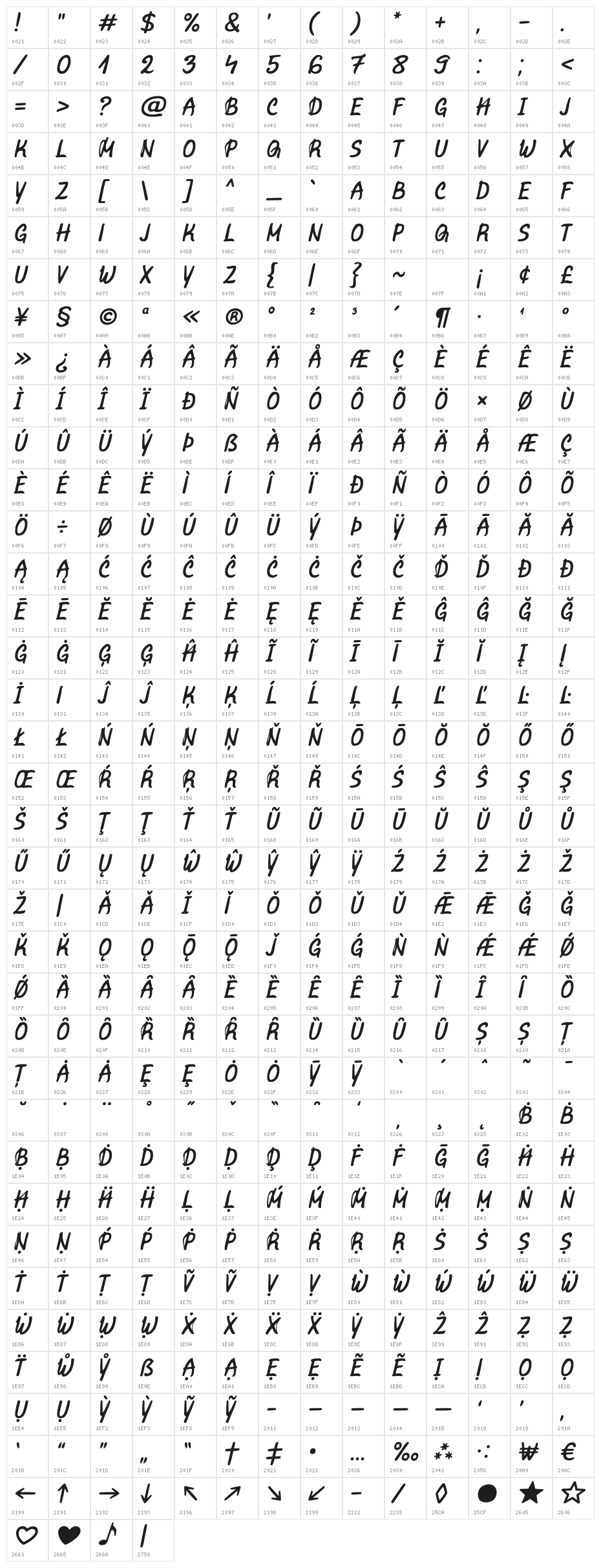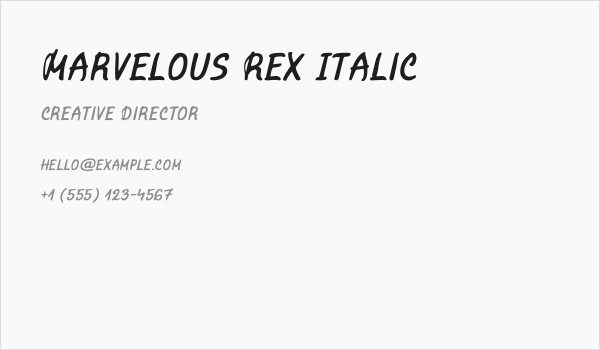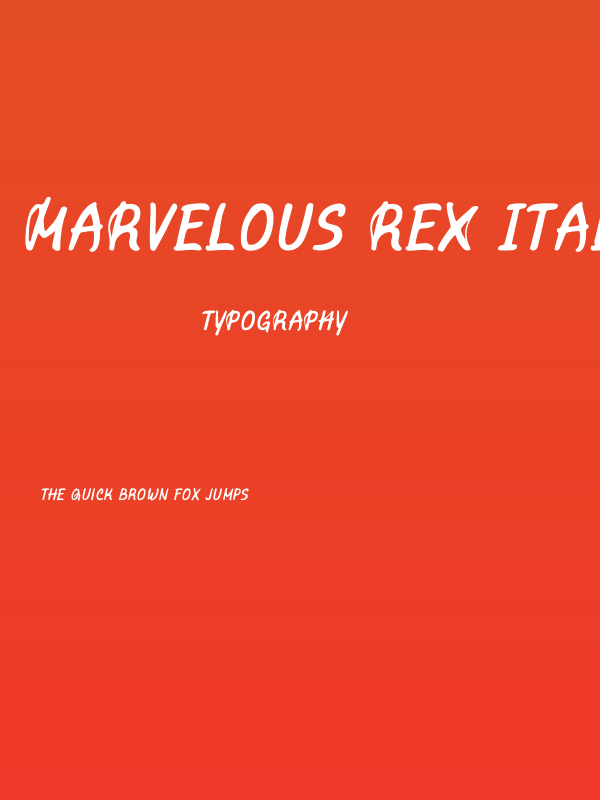
Marvelous Rex Italic Font
Marvelous Rex Italic Description
This font exhibits a playful and dynamic style, characterized by its italicized and handwritten appearance. The letters are bold and slightly slanted, giving a sense of motion and energy. The strokes are consistent in thickness, providing a uniform look across all characters. The uppercase and lowercase letters maintain a cohesive style, with rounded edges and smooth curves. Numbers and special characters are designed to match the overall aesthetic, ensuring versatility in various applications. This font's lively and informal nature makes it suitable for creative and expressive projects.
| Proposed Projects | Ideal for greeting cards, playful branding, children's books, and creative posters. |